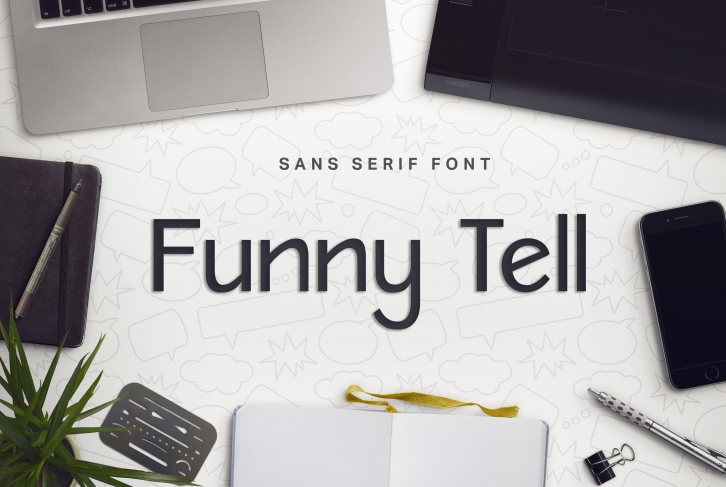
Funny Tell is a simple, modern, and overall fun! I created this font inspired by comics, I wanted a mix of a handwritten style and a modern font for comics.
The characters are sharp, and smooth. This font is not only meant for comics, it can also be used for social media, logos, branding design, books, presentations, textiles, signs, or anything you like!
- Uppercase A-Z
- Lowercase a-z
- Accented characters
- Standard punctuation
- ñ, ç, â, ü
- Double-letter ligatures